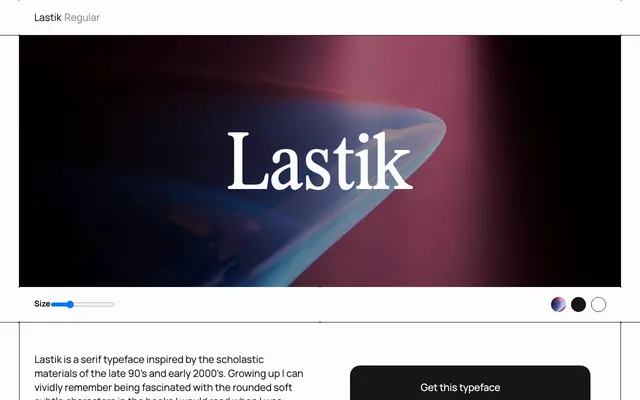
A single-weight free grotesque with very limited available information on its design origins or intended use.
Available in a single Regular weight, Lastik is a free grotesque with minimal documentation on the Free Faces gallery. With no named designer, no stated year of release and no extended family, it offers little context for considered typographic application. Suitable only for projects where licensing cost is the primary concern.
The page provides minimal information, but the name and single-weight presentation suggest a straightforward sans-serif grotesque style typical of free foundry releases.